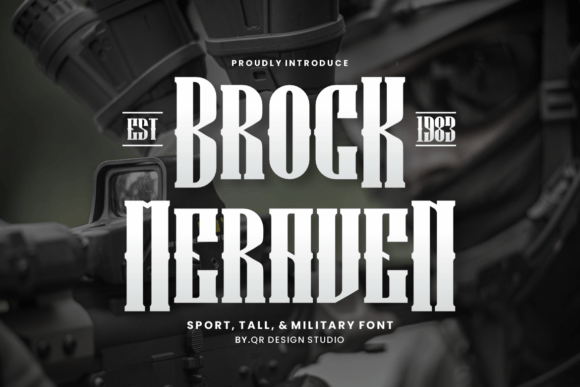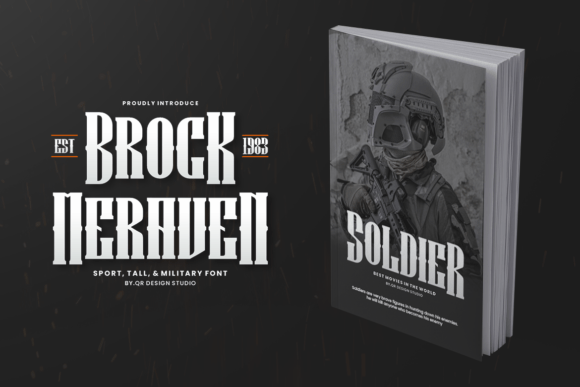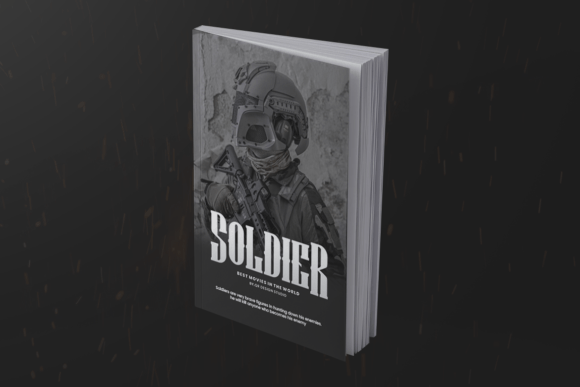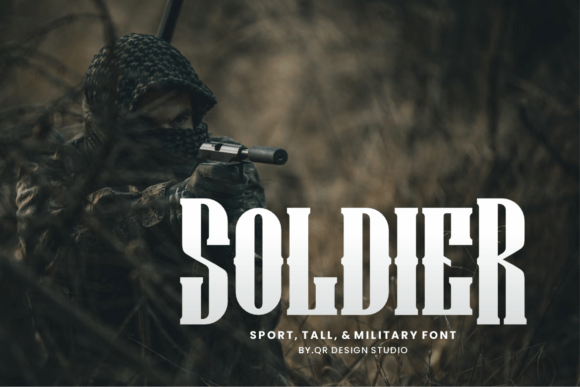
Brock Meraven Font: A Bold Display Font for Powerful Logo Design
About the Brock Meraven Font
Crafted with precision, the Brock Meraven Font is ready to bring your ideas to life. Brock Meraven: A bold military font standing tall and commanding attention. With its strong, straightforward design, it’s perfect for projects needing a touch of authority. Great for posters, banners, and anything that demands a powerful presence.
Brock Meraven excels in headline applications, short impactful statements, and branding elements where a strong, authoritative voice is needed. Its bold structure works well for posters, signage, and packaging for products emphasizing strength, durability, or tradition. However, its condensed letterforms and high x-height make it less suitable for body text or UI elements requiring high readability over extended lengths.
Consider pairing Brock Meraven with a clean sans-serif like Montserrat for a modern contrast, or a classic serif like Garamond for a more traditional feel. These pairings provide readability for supporting text while maintaining the impactful presence of Brock Meraven in headlines. A subtle script font could also add a touch of elegance to certain applications, depending on the overall branding goal.
The font projects a serious, commanding personality, ideal for brands associated with security, military, or high-end goods. Its strength and directness make it unsuitable for projects requiring playfulness or a lighthearted approach.
Brock Meraven Font Usage Examples
Brock Meraven Font Example